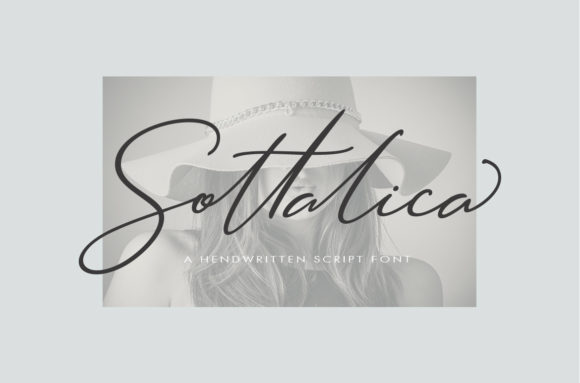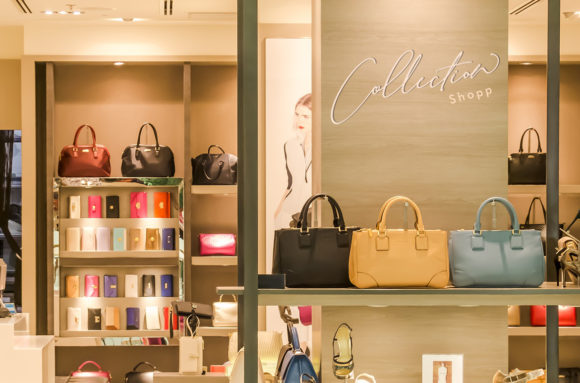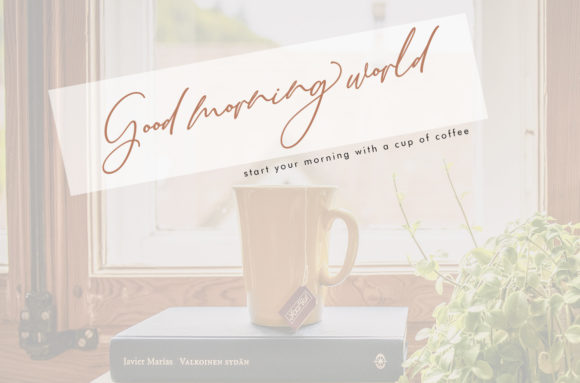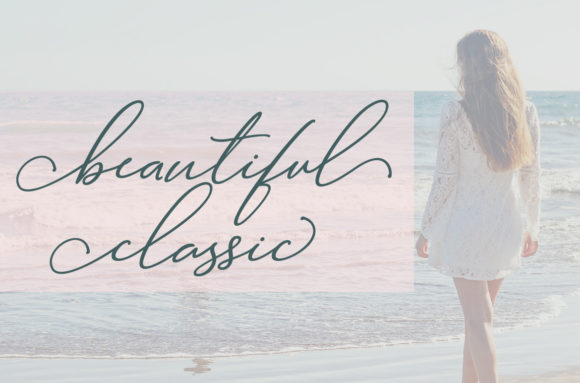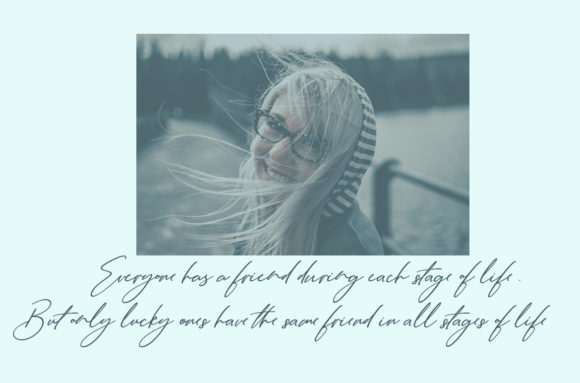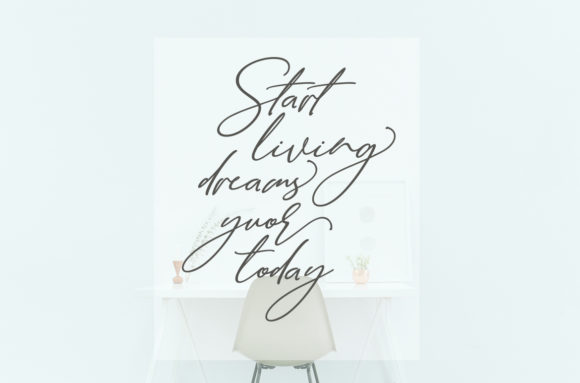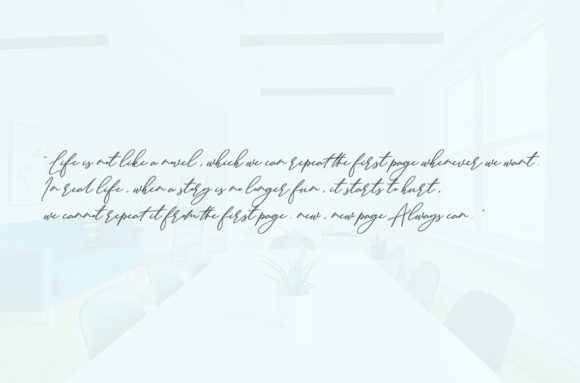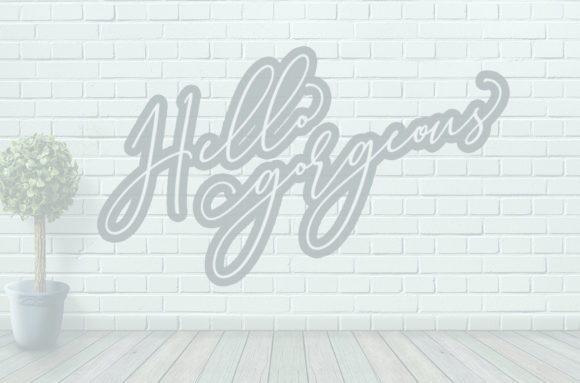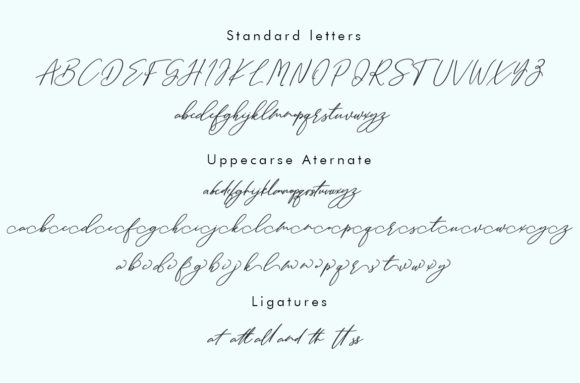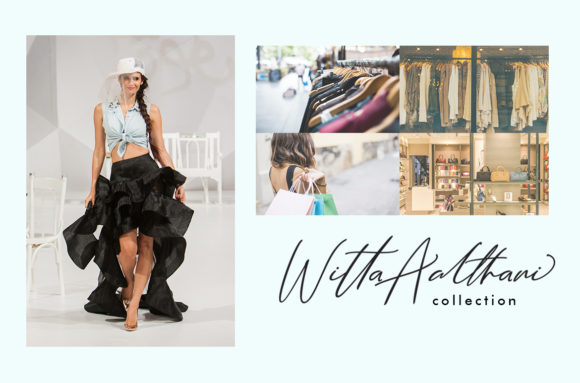
Sottalica Font
About Sottalica Font
The Sottalica is a modern calligraphy font. It has an amazing handwritten font which is perfect for adding a natural touch to your logos, branding, magazines, mugs, business cards, quotes, and much more!